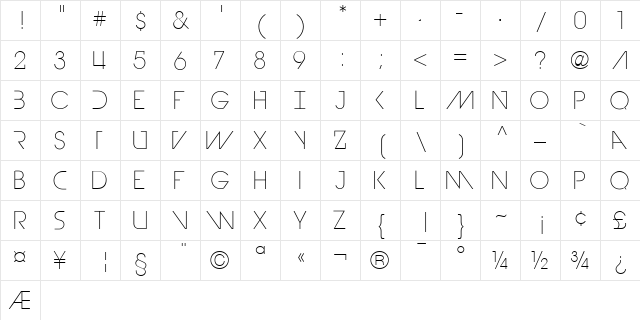
Devil Breeze Light
| Foundry | Wesley Pastrana Rosado(Weslo-GFx) |
| Designer | Wesley Pastrana |
Design Context for Devil Breeze Typeface
Devil Breeze is a composed and adaptable typeface that performs quietly and consistently across a wide range of design contexts. Its slender proportions lend an understated elegance to any composition.